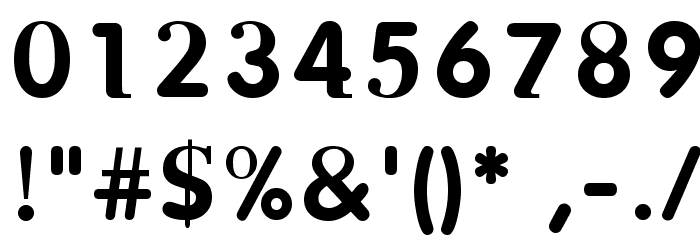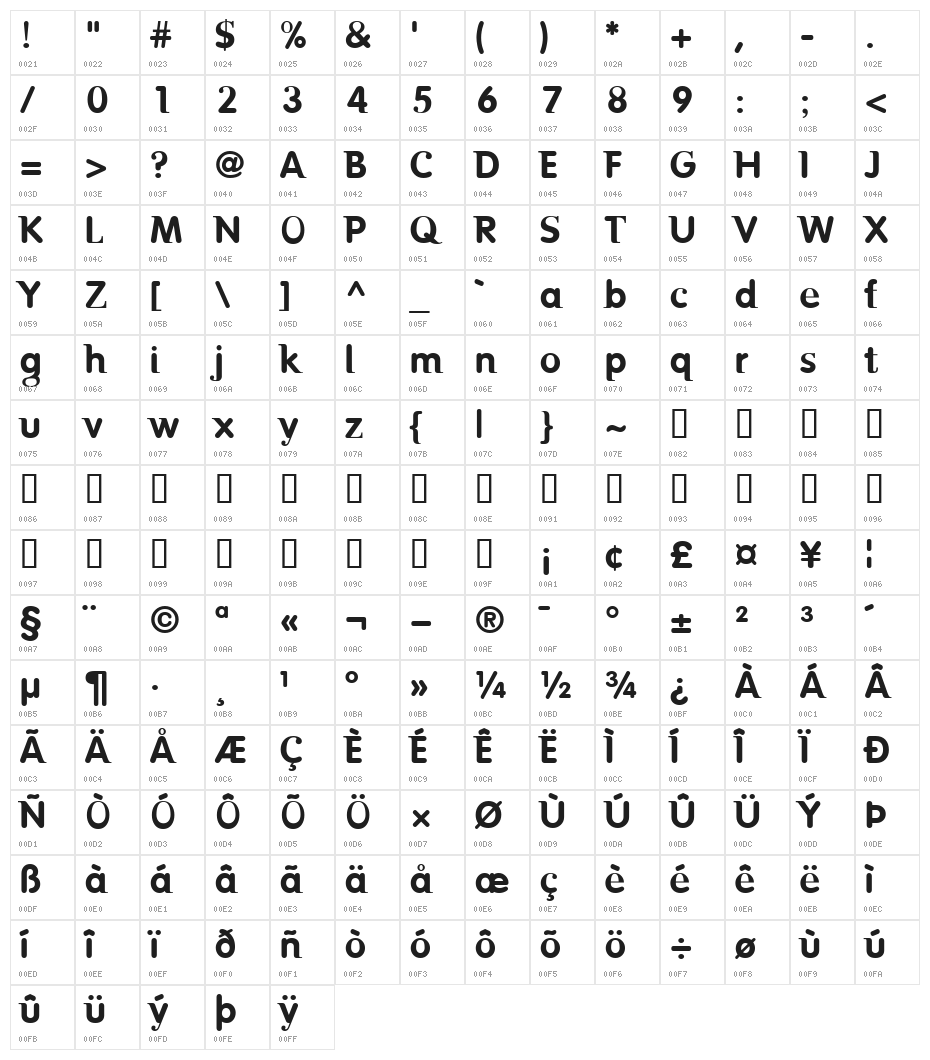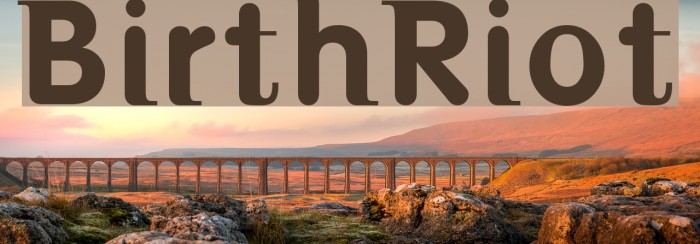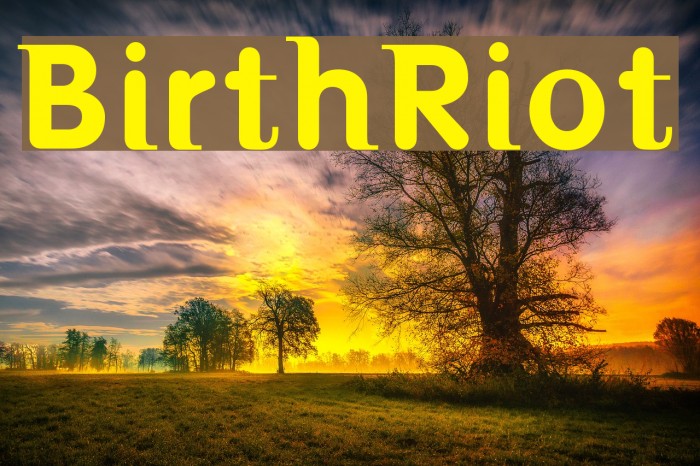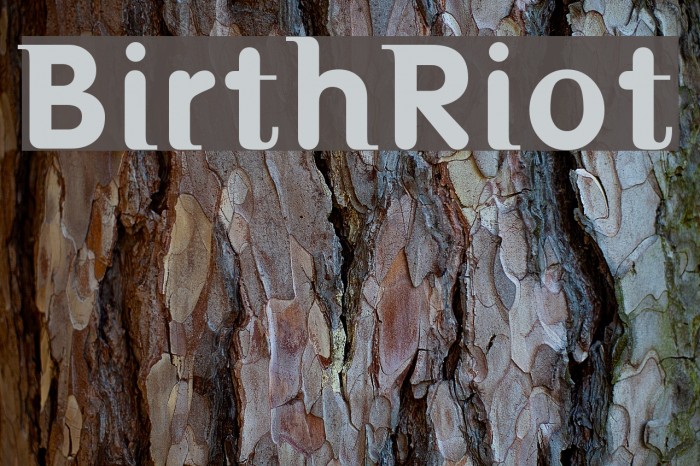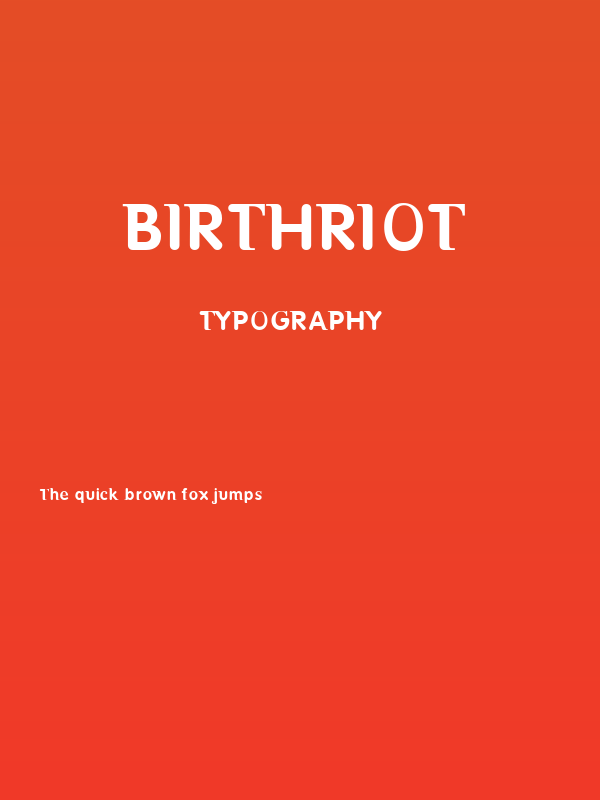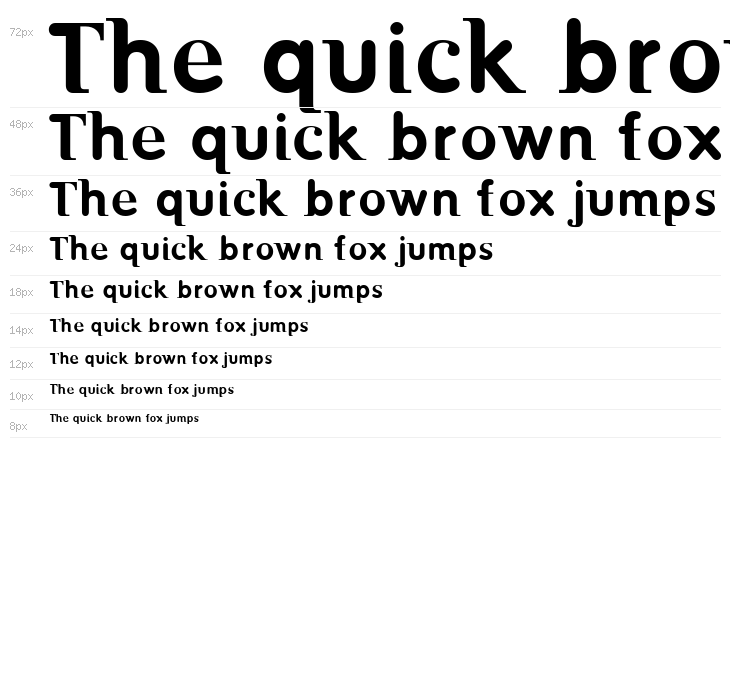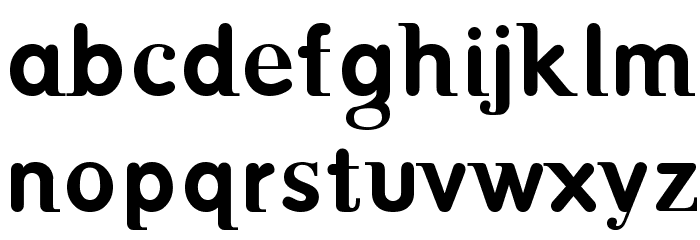
BirthRiot Font
BirthRiot Description
This font features a bold and playful style with rounded edges and a slightly whimsical appearance. The uppercase letters are robust and commanding, while the lowercase letters maintain a friendly and approachable feel. The numerals are consistent with the overall boldness, ensuring readability and impact. Special characters are designed to complement the alphabet, maintaining the same playful yet structured aesthetic. This font is versatile, suitable for both digital and print media, and can add a touch of personality to any project.
| Proposed Projects | Ideal for children's books, playful branding, posters, and creative digital content. |